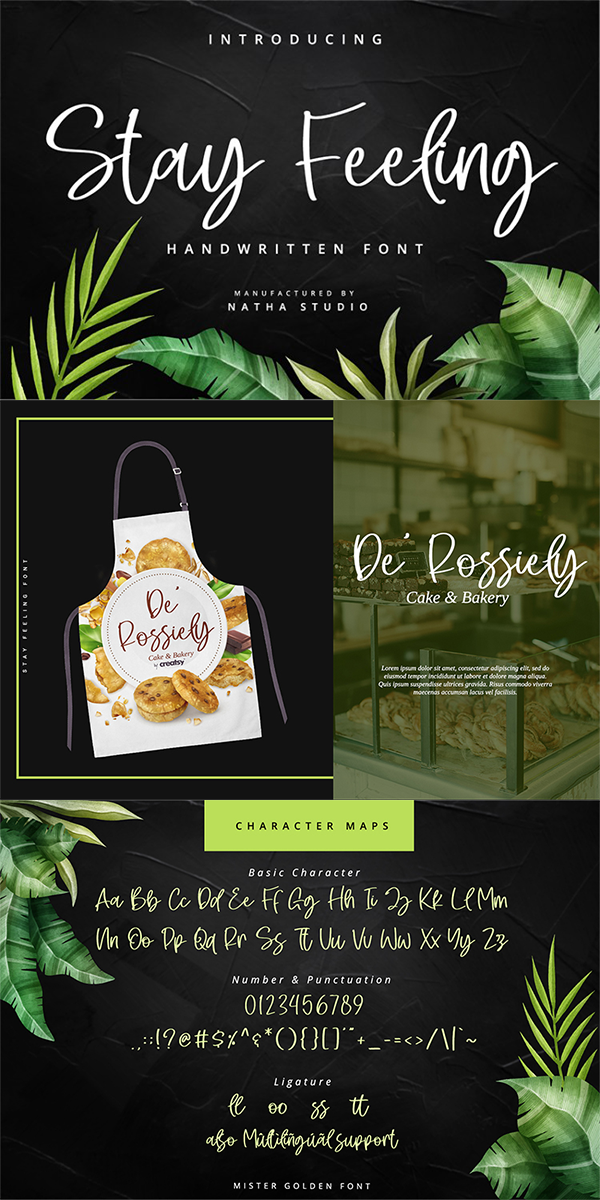
Stay Feeling Font
About Stay Feeling
Stay Feeling is a beautiful and sweet handwritten font. It is fresh, modern, and elegant. This font will look amazing in a great number of projects, from wedding invitations and greeting card to social media quotes, branding, and more!
Featured :
-Standart Ligatures